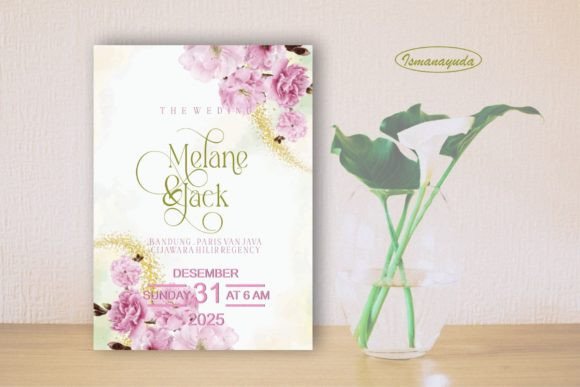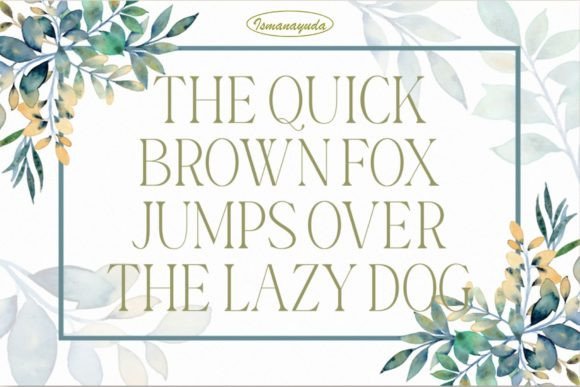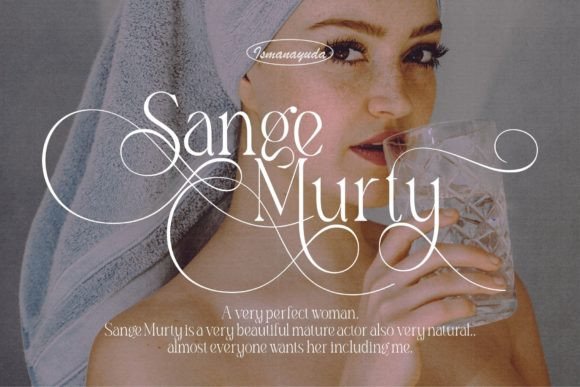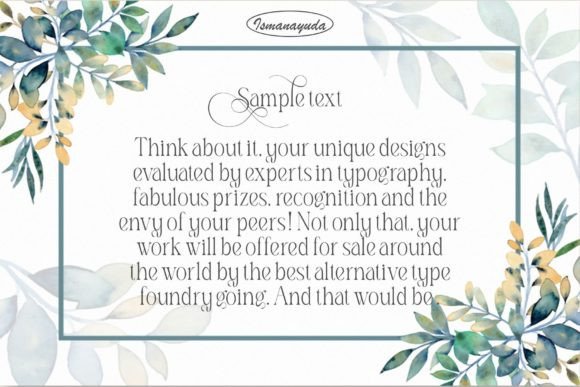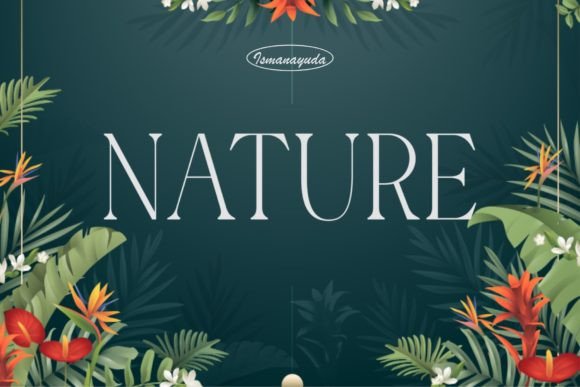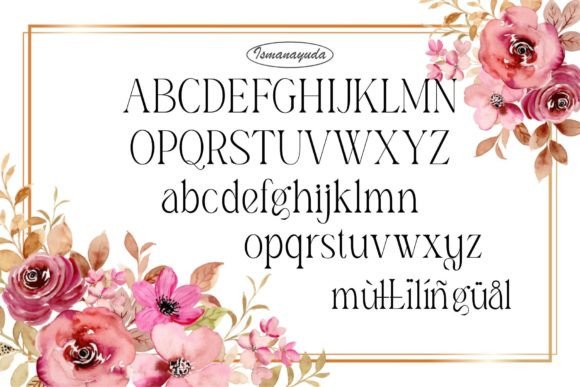
Introduction to She Abeget Font
Imagine you’re sitting in a quiet café, surrounded by the soft glow of string lights, sipping a cup of coffee, and browsing through design inspiration. As you scroll through your favorite design blog, you stumble upon a beautiful wedding invitation that catches your eye. The elegant curves and refined serifs of the She Abeget Font immediately grab your attention, making you feel like you’re gazing at a masterpiece.
As designers, we’re always on the lookout for high-quality fonts that can elevate our creative projects. The She Abeget Font is a valuable addition to any design resource, offering a clean and sophisticated look that’s perfect for luxury designs, elegant branding, and wedding invitations. Its versatility and ease of reading make it a go-to choice for designers who demand the best.
Whether you’re working on a free download or a paid design project, the She Abeget Font is sure to impress. With its transparent background and refined serifs, it’s a design resource that’s hard to resist. In this article, we’ll delve into the world of the She Abeget Font, exploring its features, uses, and why it’s a must-have for any designer.
Key Features of She Abeget Font
- High-quality font design with a unique, hand-drawn style, perfect for creative projects.
- Unique characteristics: features a mix of bold and delicate lines, creating a visually appealing and engaging design.
Honest Review: She Abeget Font
I recently stumbled upon the She Abeget Font, and I must say it’s a lovely addition to my design resources. With a high quality and modern design, it’s perfect for any creative project that requires a unique and elegant touch.
The font features a transparent background, making it easy to use with any background image or color. I appreciate the simplicity and versatility of this font, which is why I’m giving it a thumbs up! ✨
While the She Abeget Font is a great addition to my design library, I do have a few minor complaints. The font can be a bit too playful for some designs, and it may not be suitable for formal or corporate projects. ⚠️
Overall, I’m impressed with the She Abeget Font. It’s a great free download that’s perfect for personal or commercial projects. I’ll definitely be using it in my future designs.
She Abeget Font is a high-quality design resource available for free download. This creative project font is ideal for various applications, including digital and print media.
Tips for Getting the Most Out of She Abeget Font
For the best results, use She Abeget Font on a transparent background and experiment with different font sizes and colors to enhance your design.
She Abeget Font is suitable for various creative projects, including:
- Print media, such as business cards and brochures
- Digital media, such as social media graphics and presentations